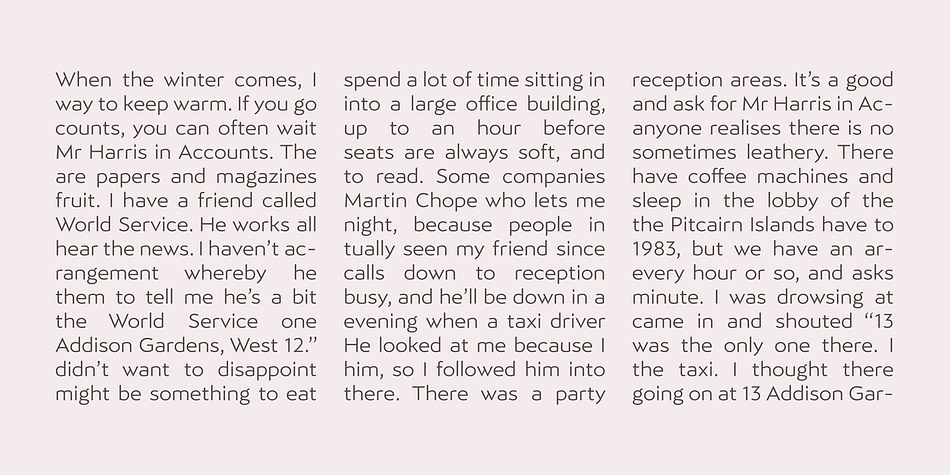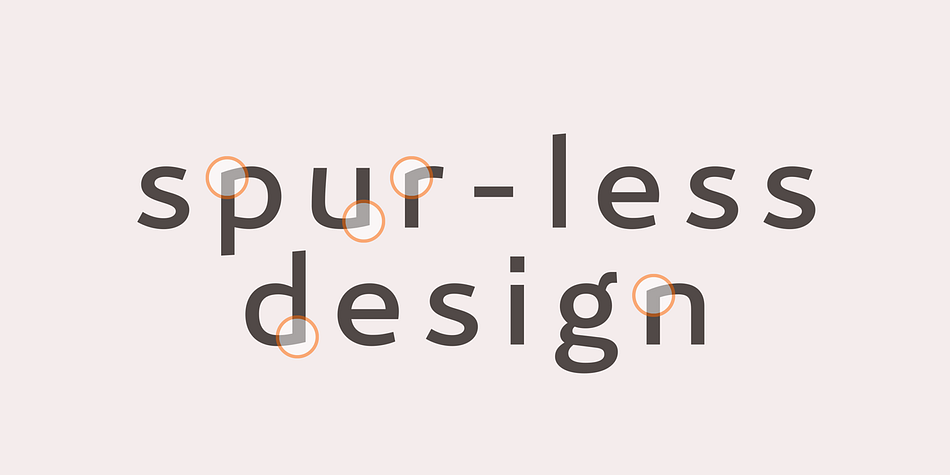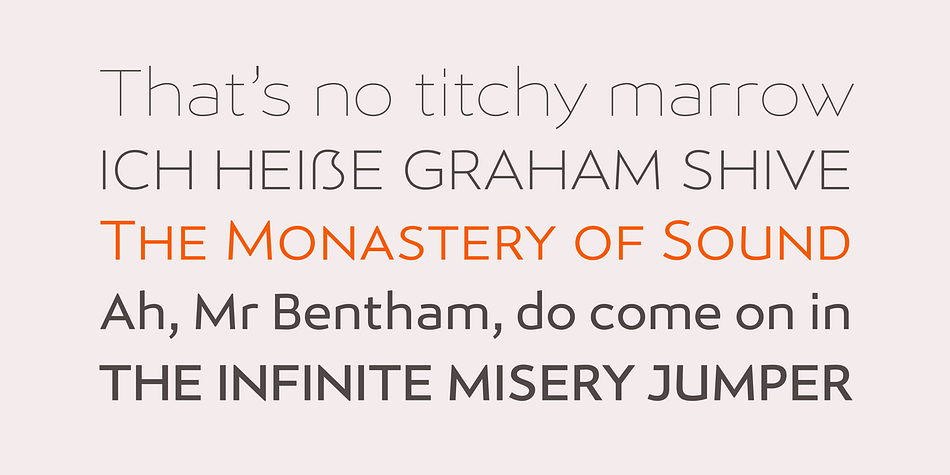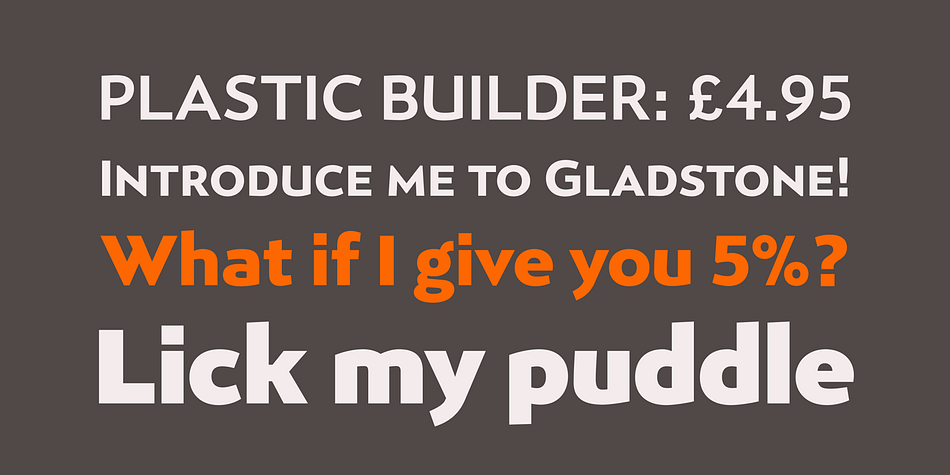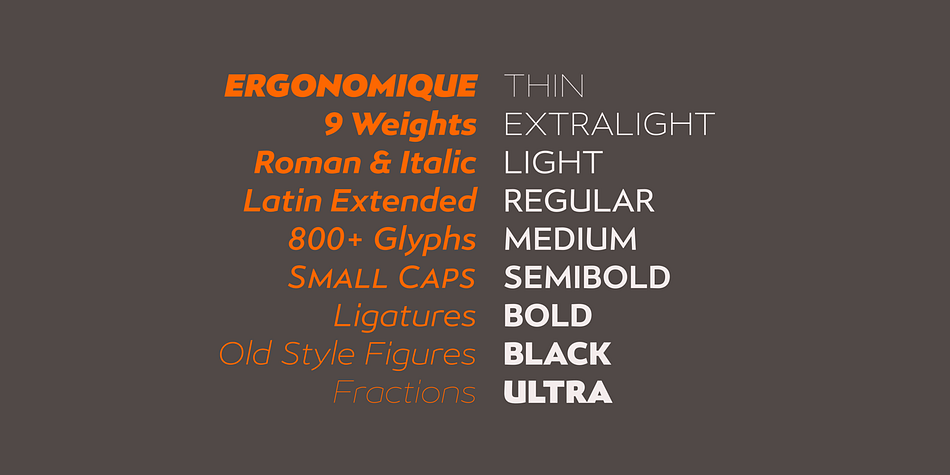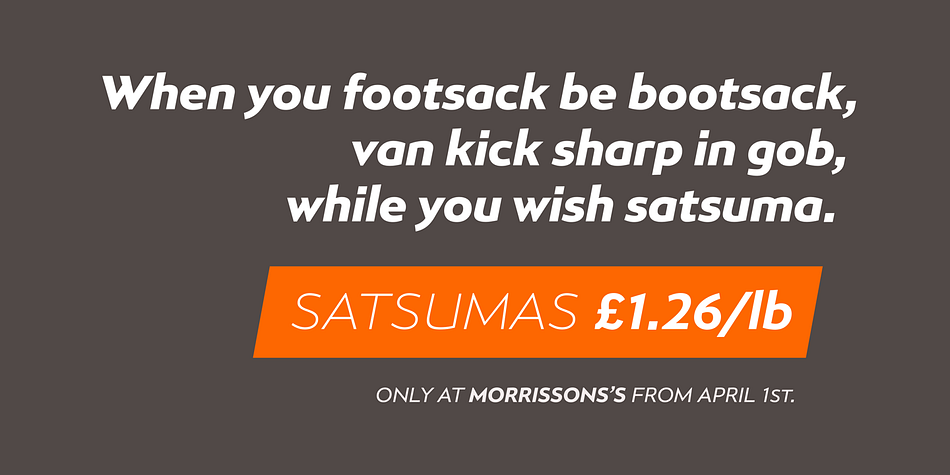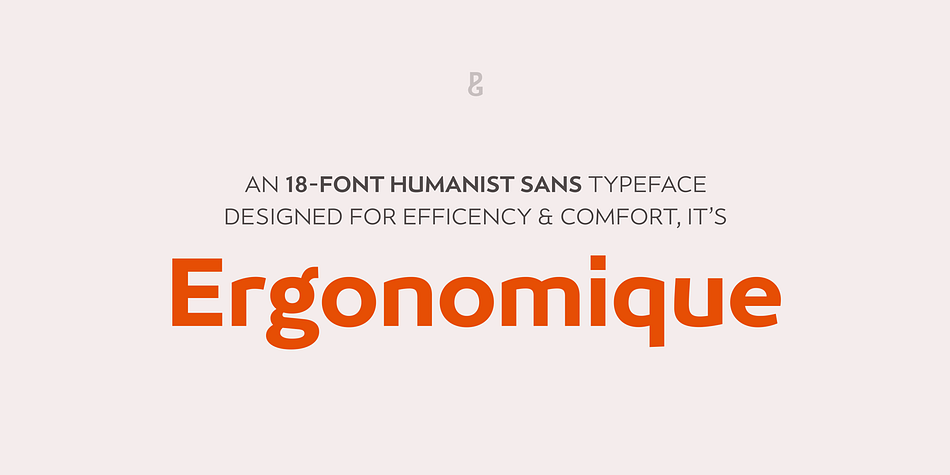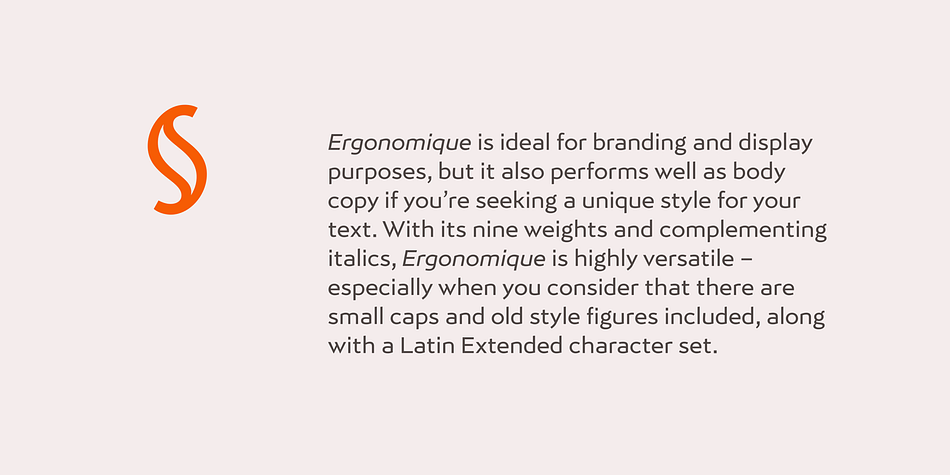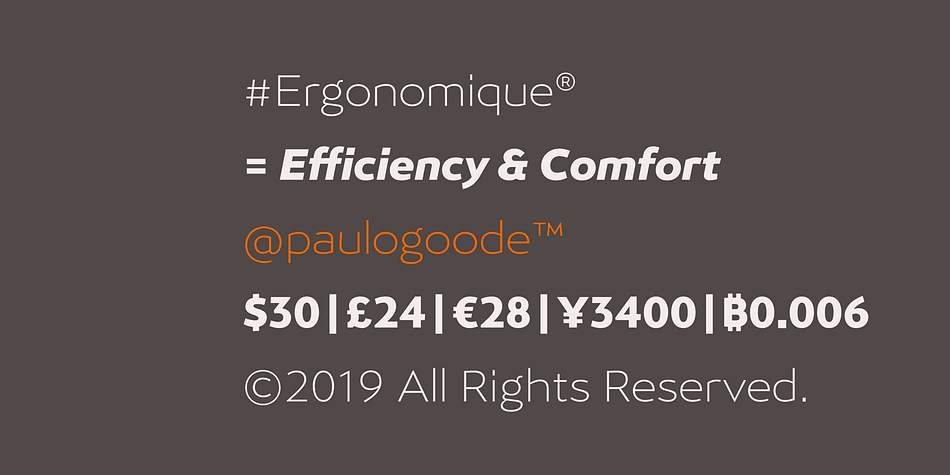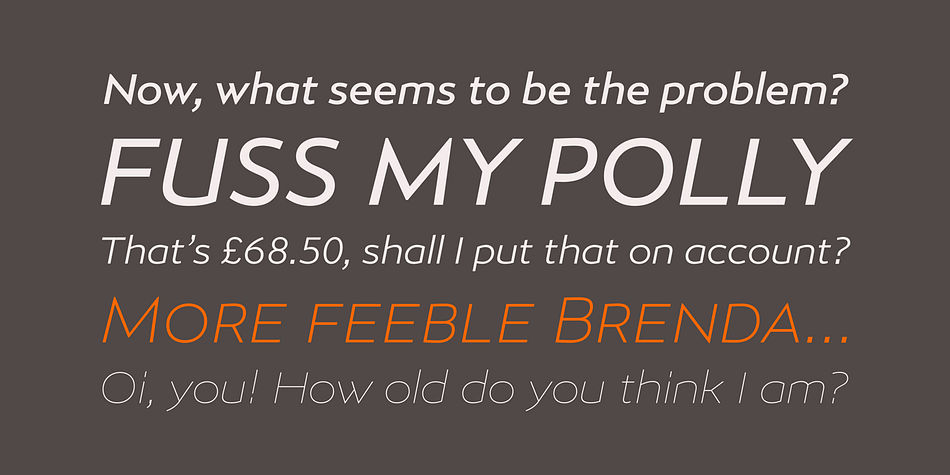
Designed by Paulo Goode, Ergonomique is a sans serif font family. This typeface has eighteen styles and was published by Paulo Goode.
Ergonomique is a humanist sans serif typeface that has been designed to be efficient and comfortable to use across all applications. Ergonomique’s personality is defined by its spurless lowercase glyphs – the stems are truncated and blend into their adjoining arcs, as can be seen in the a/b/d/m/n/p/q/r/u characters.
Ergonomique is ideal for branding and display purposes, but also performs well as body copy if you’re seeking a unique style for your text. With its nine weights and complementing italics, Ergonomique is highly versatile, especially when you consider that there are small caps and old style figures included, along with a Latin Extended character set.